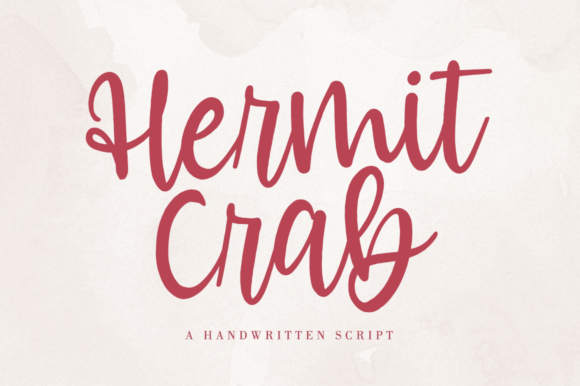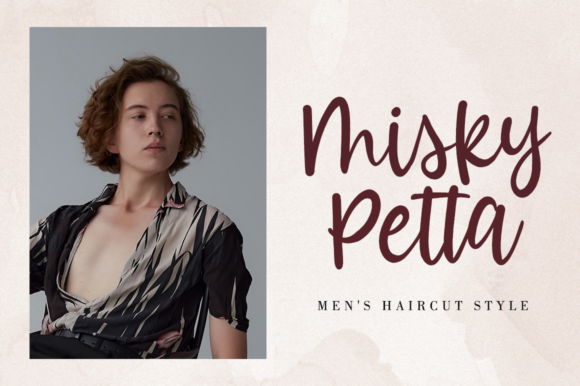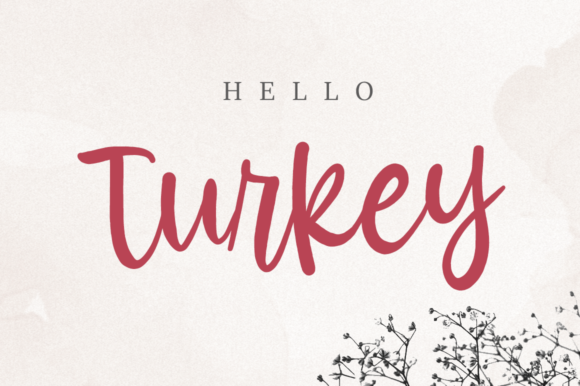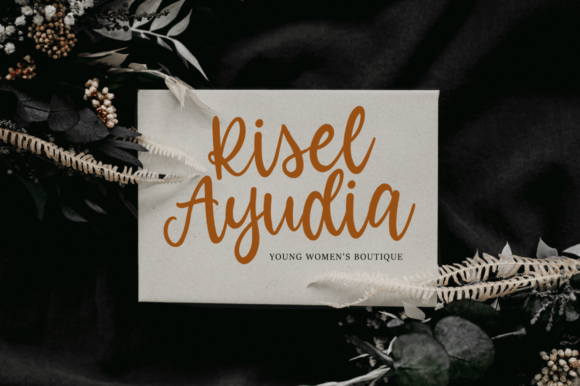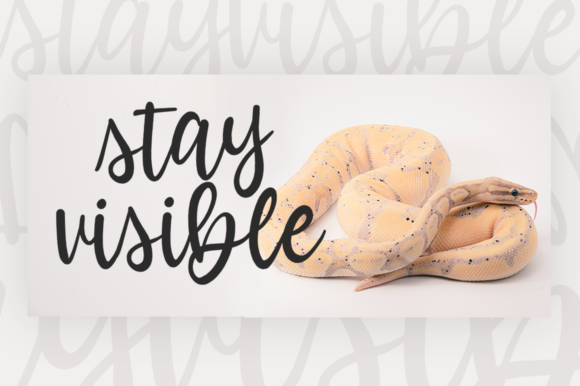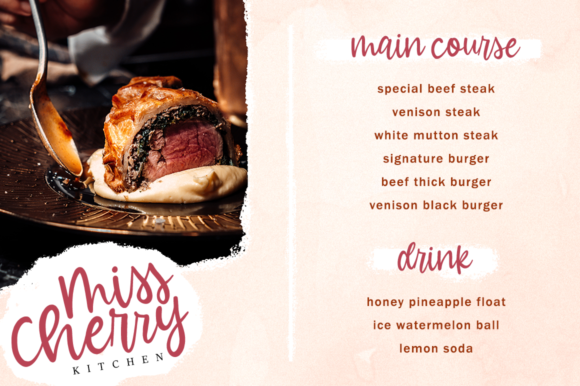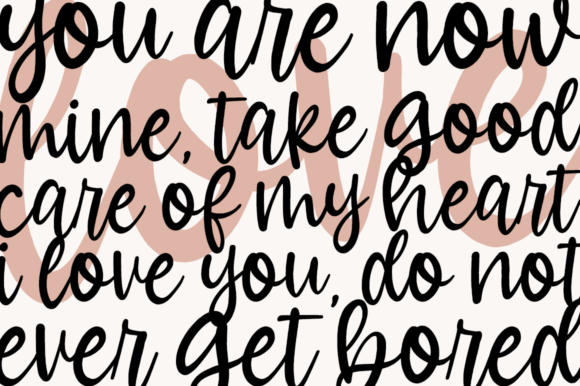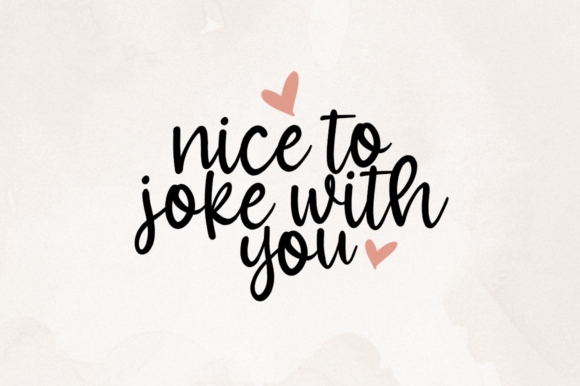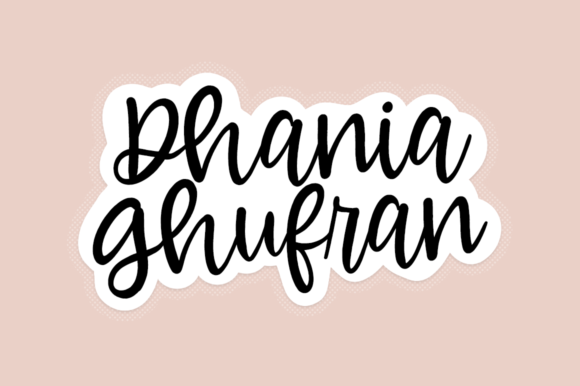
Hermit Crab is a lovely script font featuring charming, playful characters that seem to dance along the baseline. Add this font to your most creative ideas, and notice how it makes them stand out!